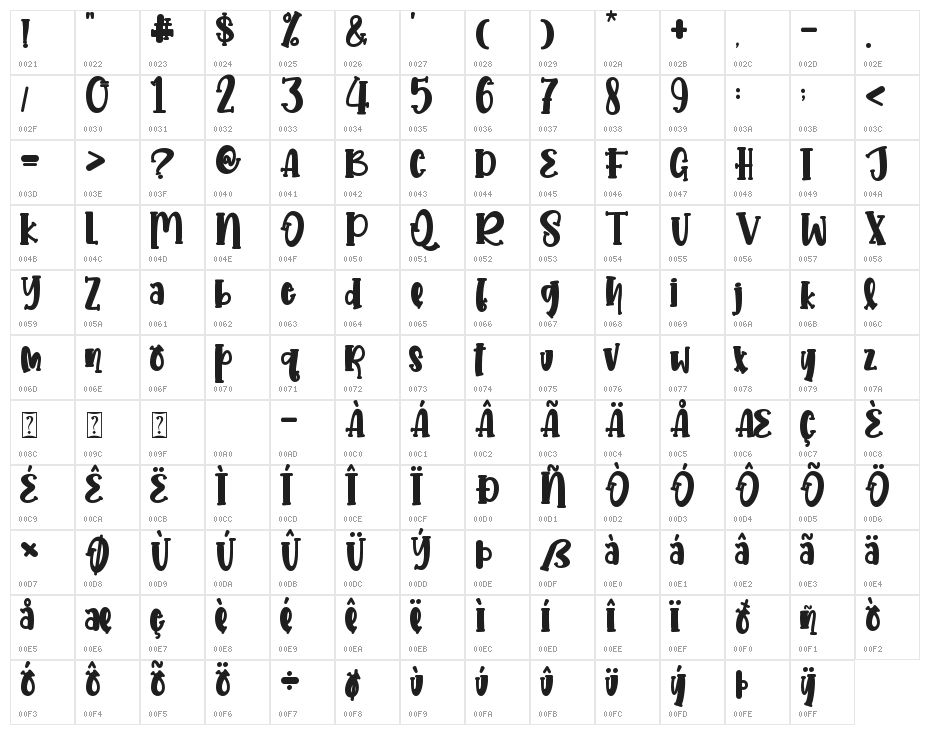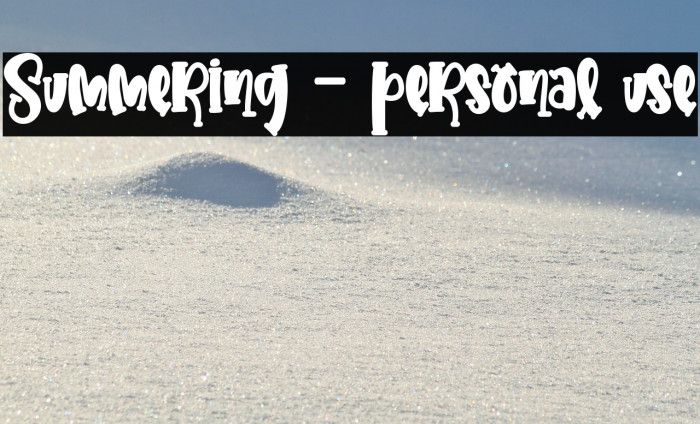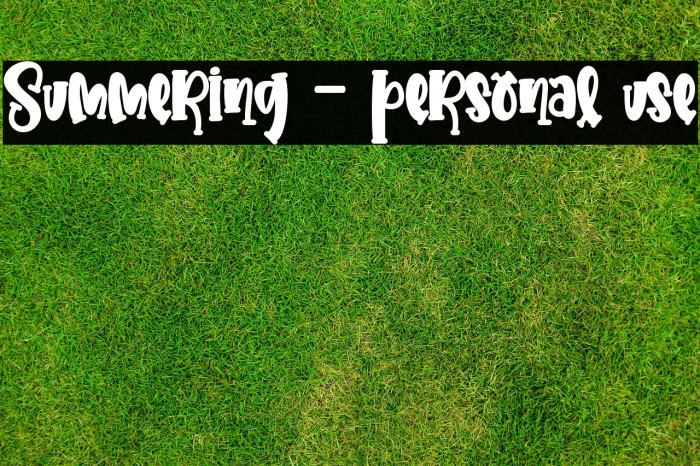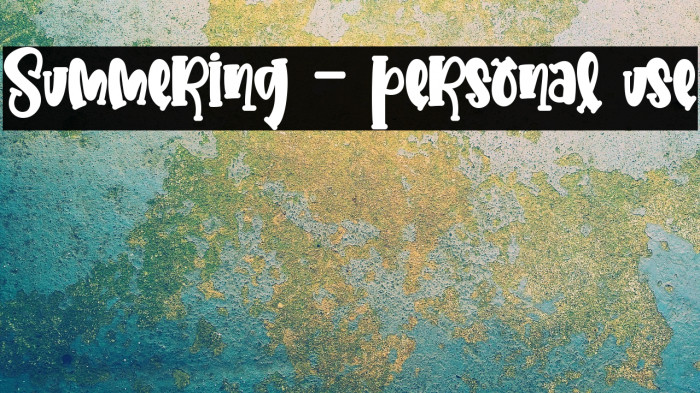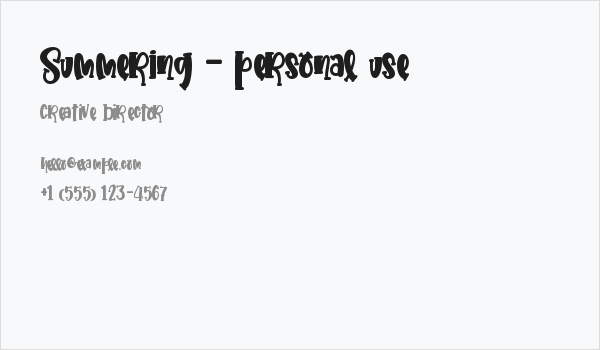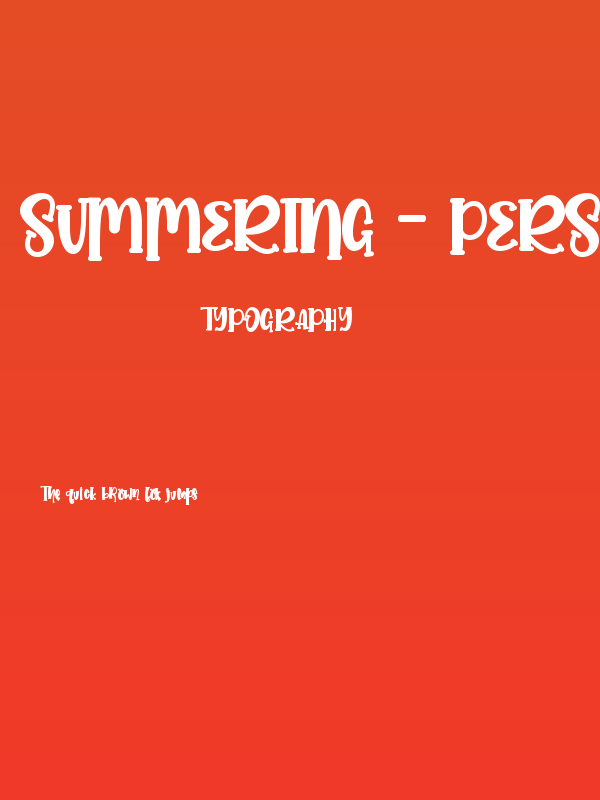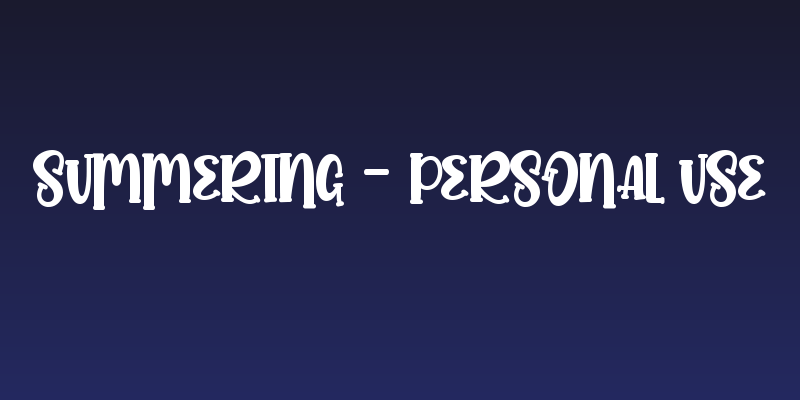
Summering - personal use Font
Summering - personal use Description
This font features a playful and whimsical style with bold, rounded characters that exude a sense of fun and creativity. The letters have a hand-drawn appearance, with varying stroke widths that add to its dynamic and lively feel. The uppercase and lowercase letters are distinct yet harmonious, with unique flourishes and curves that make each character stand out. The numbers and special characters maintain the same playful aesthetic, making this font versatile for various creative projects. Its boldness ensures high readability, while the artistic elements provide a unique flair.
| Overall Style | Playful, Whimsical, Creative |
| Proposed Projects | Ideal for children's books, playful branding, greeting cards, and creative posters. |